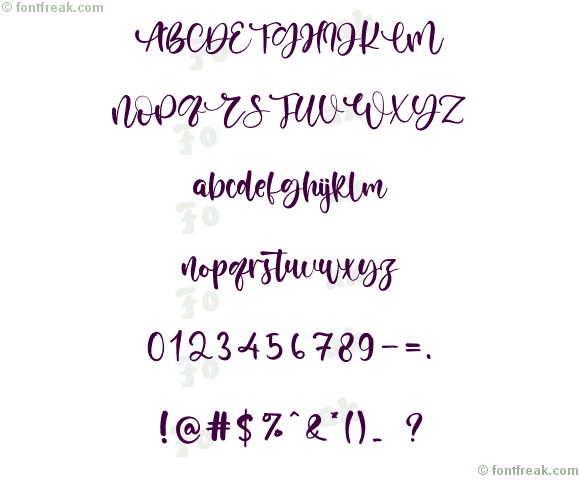
Renesmee
Renesmee Italic
About Renesmee
Renesmee by Kong Font is an elegant script typeface that captures the essence of handwritten artistry. This font features smooth, flowing strokes with a moderate contrast in weight, which adds a touch of sophistication while still maintaining legibility. The design includes subtle decorative elements that enhance its charm without overwhelming the text, making it suitable for a variety of applications. The spacing is well-balanced, allowing for easy readability even in longer texts.
This versatile typeface shines in specific use cases. It is perfect for wedding invitations, where its graceful style evokes romance and elegance. Additionally, Renesmee is an excellent choice for branding projects, especially for businesses looking to convey a personal touch, such as boutique shops or artisanal cafes. Its distinctive appearance makes it ideal for movie posters, particularly for romantic or fantasy genres, where it can evoke a sense of whimsy. Furthermore, Renesmee can be effectively used in social media graphics, helping content creators stand out with its unique flair.
The target audience for the Renesmee font includes graphic designers, small business owners, and content creators who prioritize aesthetics in their projects. Whether you're crafting a heartfelt invitation or designing a striking advertisement, this font provides the artistic expression needed to connect with your audience.